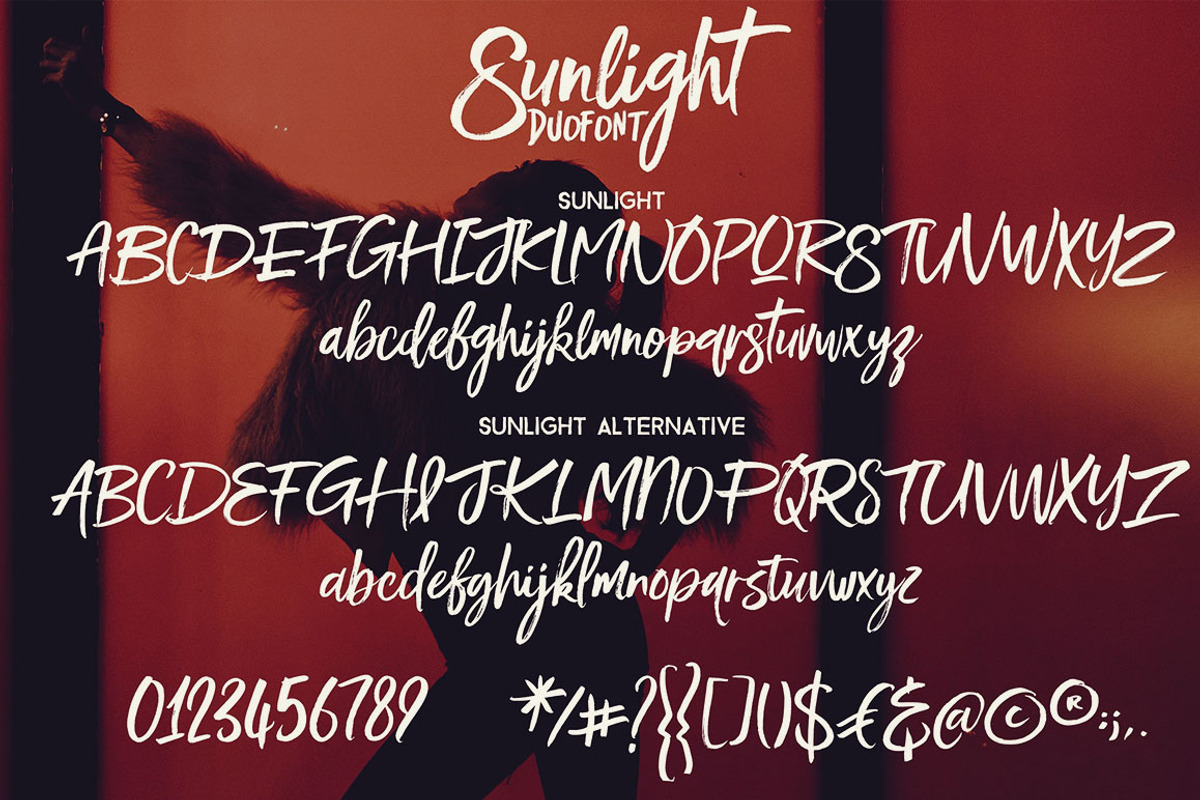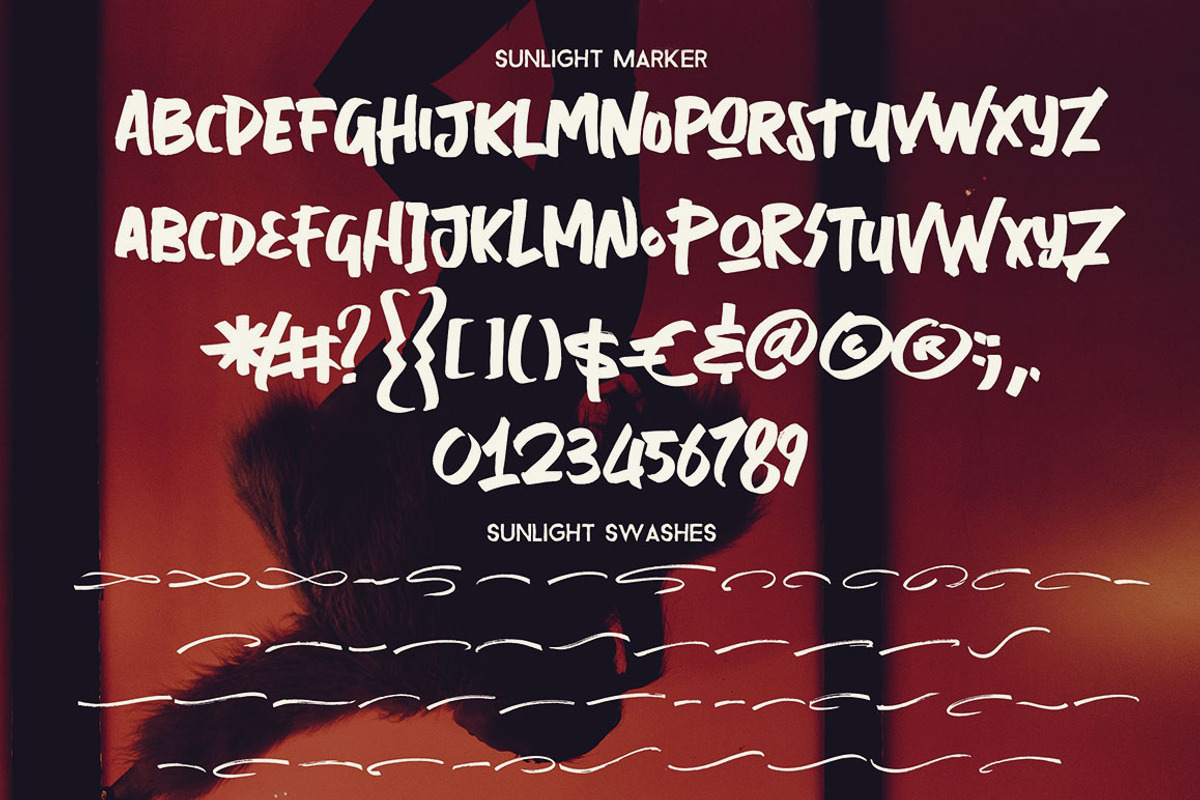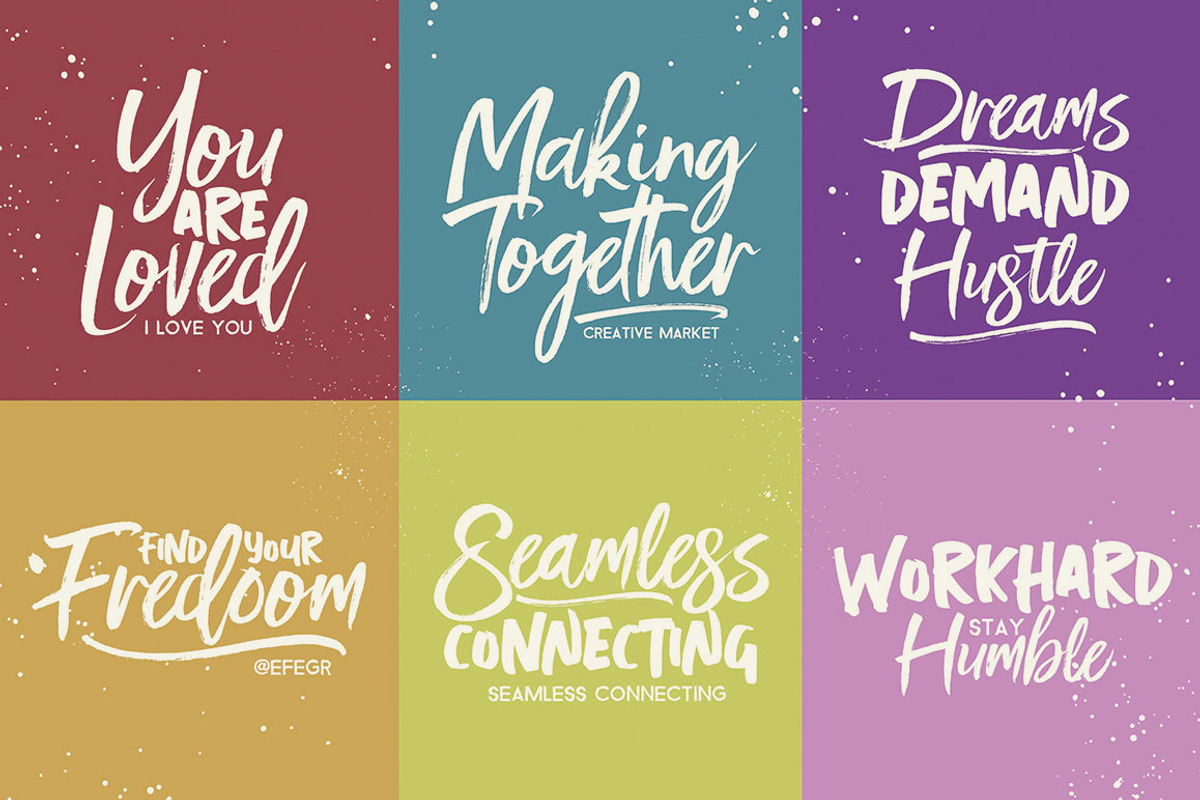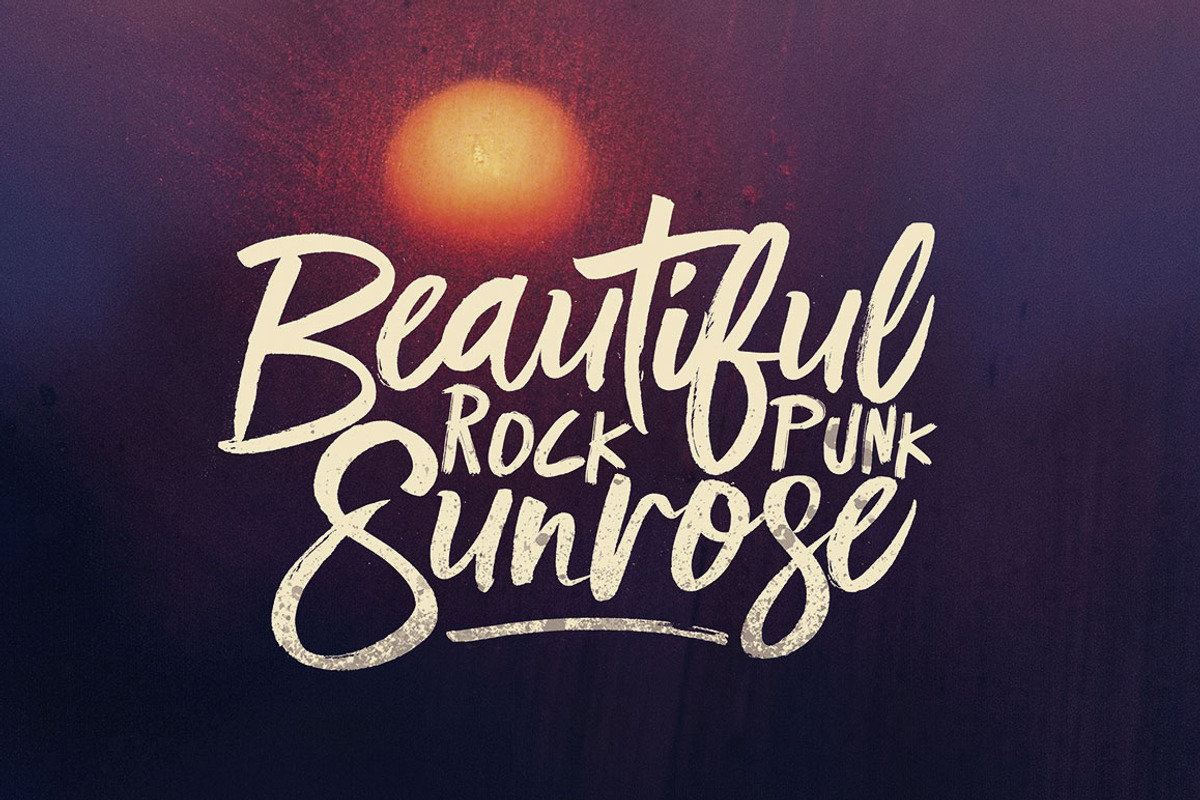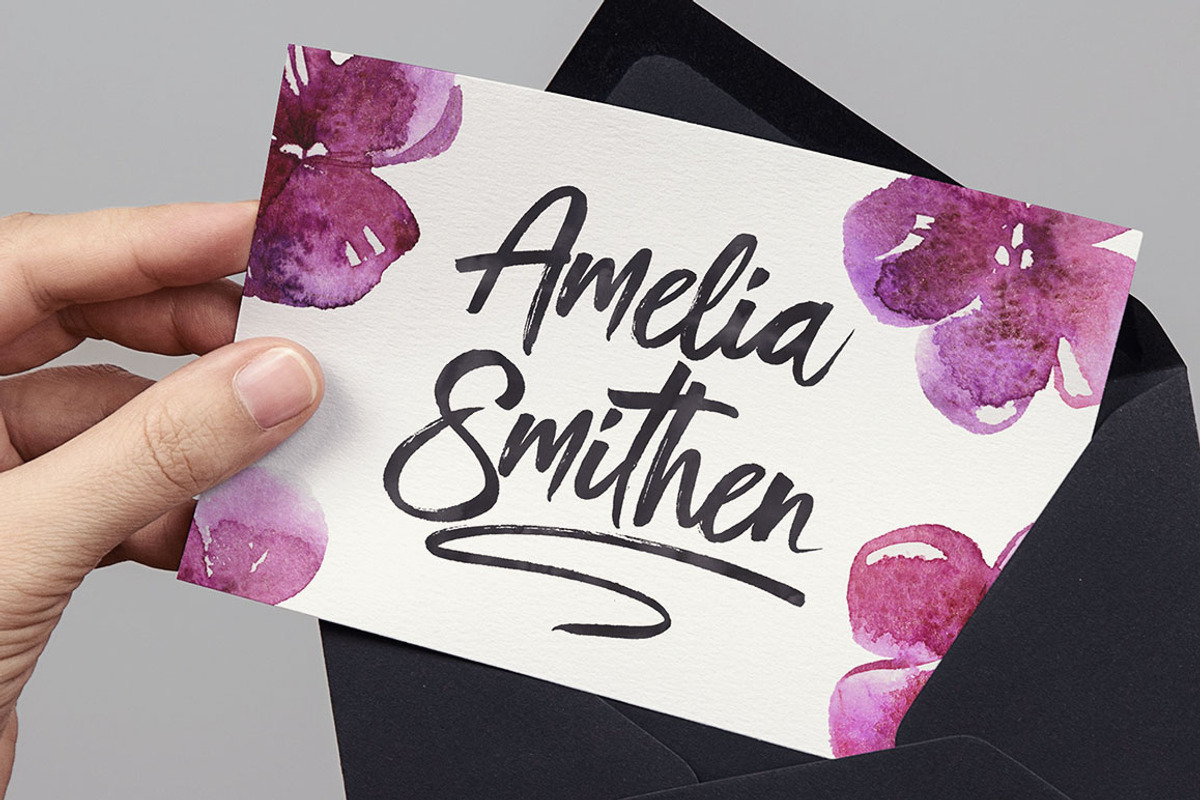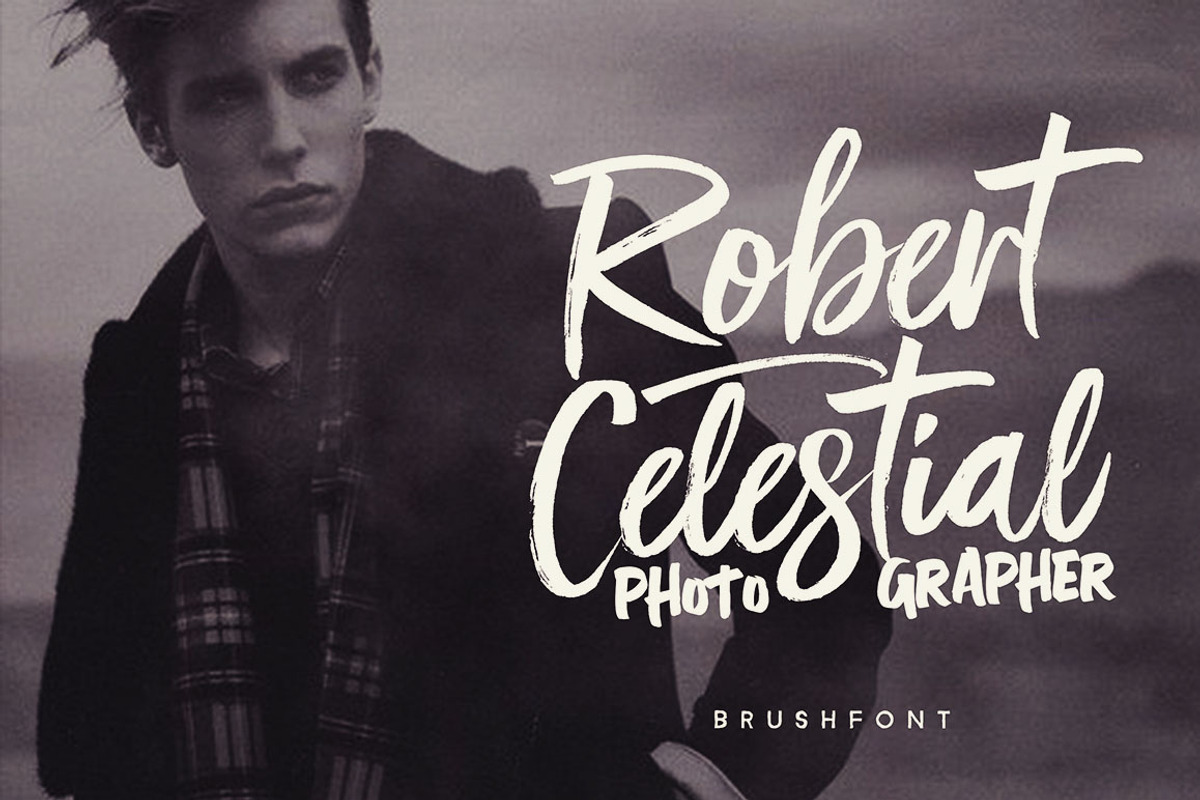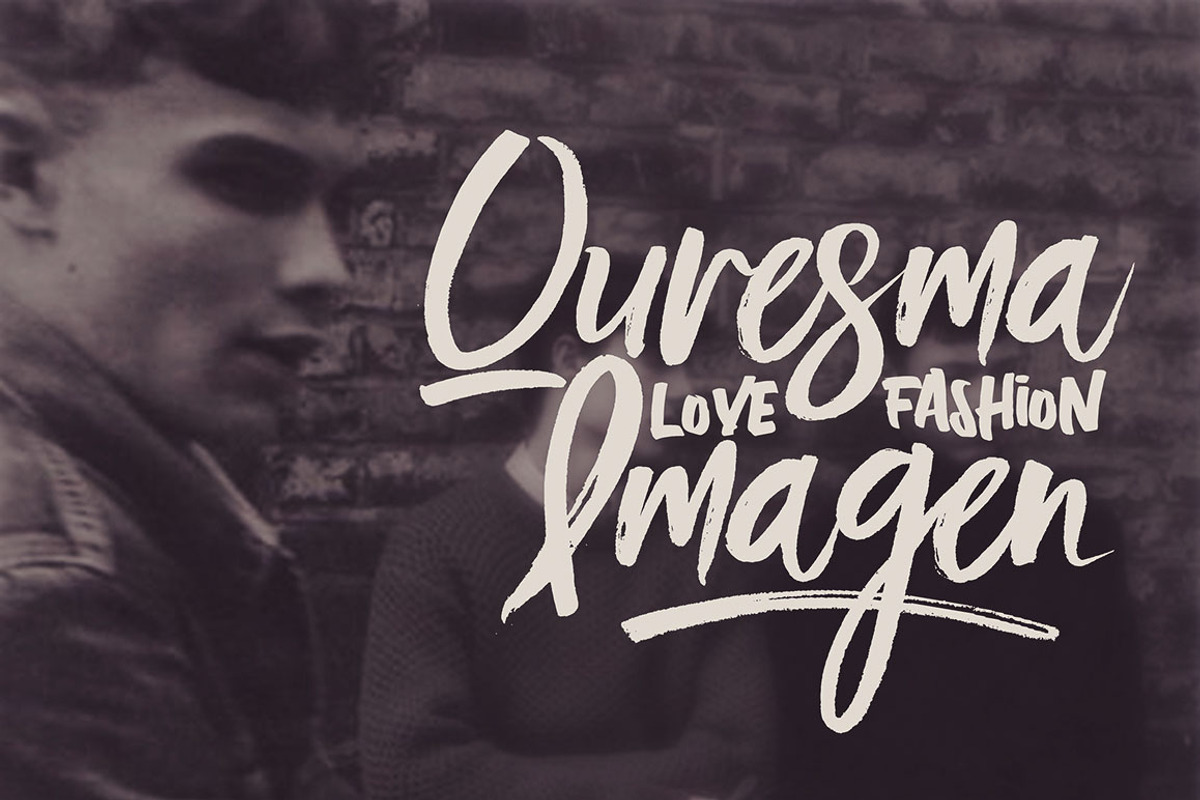
Sunlight - Brush Font Duo
Cool handwritten brush style font duo with 3 fonts & swash font for your new projects. Great for grunge or artistic projects!